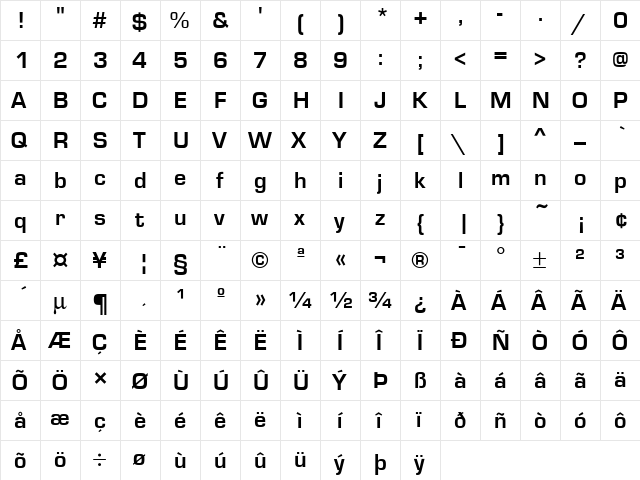
Eurostile T Bold
Design Context for Eurostile T Typeface
Eurostile T is a composed and adaptable typeface that performs quietly and consistently across a wide range of design contexts. The heavy weight commands attention and anchors typographic hierarchies.